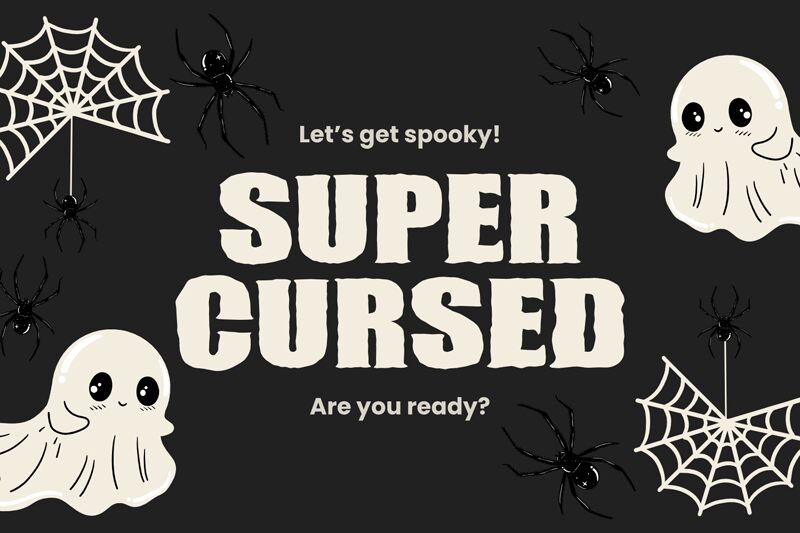
Super Cursed is a free vintage-inspired holiday font designed by fsuarez913. This grotesque font brings distressed horror-themed aesthetics with strong visual presence for a dramatic impact. Evoking nostalgia and conveying vibes of mystery and unease, the font embodies rugged aesthetics for an unkinder atmosphere. Its style makes it especially suitable for Halloween and other horror contexts.
This rugged piece of typography art is perfect for horror branding, Halloween party posters, Halloween cards, and similar invitations, or movie title design. Try it on vintage product labels, horror books, gaming, package design, logos, or branded merchandise. Take advantage of its strong concept and style.